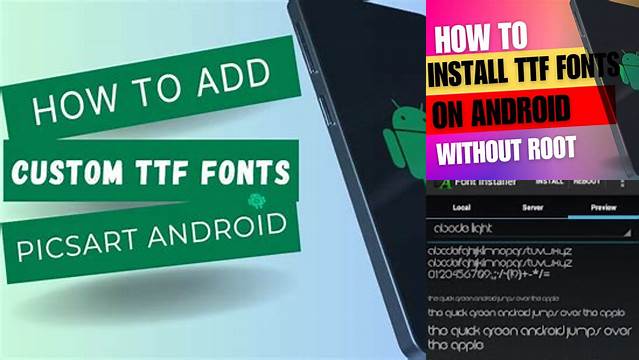
Download TTF Fonts On Android: A Simple Guide
Hey guys! Ever felt like your Android phone's fonts are just a bitβ¦blah? Want to spice things up and make your device truly you? Well, you're in luck! Learning how to download TTF fonts for Android is a super easy way to personalize your phone or tablet. TTF (TrueType Font) fonts are a common and versatile type of font that works on pretty much any device, including your Android. They're like the chameleons of the font world, adapting to fit right in and look great. This guide will walk you through everything you need to know, from finding cool fonts to installing them and making your phone look awesome. So, let's get started and make your Android device a reflection of your personality!
1. Understanding TTF Fonts
Before we dive into the how-to, let's talk a bit about what TTF fonts actually are. TTF stands for TrueType Font, and it's a standard in the digital font world. Think of them as the OG of fonts, having been around since the late 1980s. Their widespread use and compatibility make them perfect for Android devices. They're scalable, meaning they look crisp and clear at any size, whether you're reading a tiny notification or a large text message. This scalability is a huge advantage, ensuring your chosen font looks fantastic across all your apps and screens. Understanding the basics of TTF fonts helps you appreciate their versatility and why they're such a popular choice for customizing your Android device. TTF fonts are like the building blocks of your phone's visual personality, so choosing the right ones is key to making your device stand out.
3. Choosing the Right Font Style
Now comes the fun part: picking out the fonts that speak to you! With so many options available, choosing the right font style can feel like picking a favorite flavor of ice cream β there are just so many good ones! Think about the vibe you want your phone to have. Do you want it to look sleek and professional? Go for a sans-serif font like Roboto or Open Sans. Feeling more playful and creative? A script font or a decorative font might be more your style. Consider the readability of the font, too. A super fancy font might look cool, but if it's hard to read your messages and notifications, it's not very practical. Balance aesthetics with functionality. Also, think about how the font will look across different apps and screen sizes. A font that looks great in one app might not look so great in another. So, experiment, try out different fonts, and see what feels right. Choosing the right font style is a key part of personalizing your Android experience, so have fun with it!
4. Checking Font Compatibility
Before you get too attached to a font, it's super important to make sure it's actually compatible with your Android device. Most TTF fonts will work just fine, but sometimes there can be issues, especially with older fonts or fonts that haven't been updated in a while. One way to check compatibility is to read the font's description on the website where you found it. Often, the creator will mention any known compatibility issues. Another thing to consider is whether the font supports the languages you need. Some fonts only include characters for certain languages, so if you need to type in a language with special characters, make sure the font supports it. It's always better to double-check compatibility before you go through the hassle of installing a font that might not work. This little bit of research can save you a lot of frustration later on. Checking font compatibility ensures a smooth and enjoyable font customization experience.
7. Extracting TTF Fonts from ZIP Files
As we mentioned earlier, TTF fonts often come packaged in ZIP files. Think of a ZIP file like a digital suitcase β it contains one or more files, compressed to make them easier to download and share. Before you can use your new font, you need to unpack that suitcase and extract the TTF file. This is usually a pretty simple process. Just navigate to the ZIP file in your file manager and tap on it. Your file manager should give you an option to extract the files. Choose a location to extract them to β the Downloads folder is usually a good choice. Once the files are extracted, you'll see the TTF file, which is the actual font file that you'll install. Extracting fonts from ZIP files is a crucial step in the installation process. It's like preparing the ingredients before you start cooking β you need to get everything ready to go! Learning to extract files ensures you can access and install your downloaded fonts smoothly.
8. Installing TTF Fonts on Android: The Challenges
Okay, here's the thing: installing TTF fonts on Android isn't always as straightforward as it could be. Unlike some other operating systems, Android doesn't have a built-in system-wide font installer. This means you can't just tap on a TTF file and have it automatically change your phone's system font. This can be a bit of a bummer, but don't worry, there are still ways to use custom fonts on your Android device! The main challenge is that you'll need to use a third-party app or a custom launcher to change your system font. Some apps and launchers offer built-in font customization options, making the process much easier. We'll talk more about those in the next sections. Understanding these challenges is key to finding the best method for installing fonts on your specific device.
9. Using Font Installer Apps
One of the easiest ways to install TTF fonts on Android is by using a font installer app. These apps act like font fairies, making the process much simpler and more user-friendly. There are several font installer apps available on the Google Play Store, such as iFont, HiFont, and FontFix. These apps usually come with a library of fonts you can choose from, but they also allow you to install your own downloaded TTF fonts. The process usually involves selecting the font file and then following the app's instructions, which might involve granting the app certain permissions. Font installer apps can be a lifesaver if you're not comfortable with more technical methods. They provide a convenient and often visual way to browse, preview, and install fonts. Using font installer apps is a great way to simplify the font installation process on Android.
10. Exploring Font Customization Options in Launchers
Another cool way to change fonts on Android is by using custom launchers. Think of a launcher as the director of your Android home screen, controlling how everything looks and feels. Some launchers, like Nova Launcher, Apex Launcher, and GO Launcher, offer built-in font customization options. This means you can change the system font directly from the launcher's settings, without needing a separate font installer app. This can be a super convenient option, especially if you already use a custom launcher. To change the font, you'll usually need to go into the launcher's settings, look for the "Appearance" or "Font" section, and then select your desired font. Some launchers even let you preview the font before you apply it, which is a huge plus. Exploring font customization options in launchers is a great way to personalize your Android experience from the ground up.
11. Rooting Your Android Device for Full Font Control
Okay, this is where things get a bit more advanced. Rooting your Android device is like unlocking its full potential, giving you access to system-level settings and customizations that you wouldn't normally have. One of the benefits of rooting is that it gives you much more control over your device's fonts. With root access, you can use apps like FontFix or iFont to change the system font directly, without any limitations. However, it's really important to understand that rooting can be risky. It can void your warranty and, if done incorrectly, can even brick your device. So, if you're considering rooting, do your research and make sure you know what you're doing. Rooting your Android device is a powerful option for full font customization, but it's not for the faint of heart.
12. Backing Up Your Current Fonts
Before you go ahead and change your fonts, it's always a smart idea to back up your current fonts. Think of it as creating a safety net β if you don't like the new font or something goes wrong, you can easily revert back to the original. Some font installer apps offer a built-in backup feature, which makes the process super easy. If your app doesn't have this feature, you can manually back up your fonts by copying them from the system fonts folder (which usually requires root access). Backing up your current fonts is like having an undo button for your font changes. It gives you peace of mind and allows you to experiment with new fonts without fear of messing things up. Always back up your fonts before making changes to ensure a smooth and reversible font customization process.
13. Previewing Fonts Before Applying
Imagine buying a new outfit without trying it on first β you might end up with something that doesn't quite fit or look the way you expected. The same goes for fonts! That's why previewing fonts before you apply them is so important. Most font installer apps and launchers with font customization options offer a preview feature. This lets you see how the font will look on your device before you commit to changing it. You can usually preview the font in different sizes and styles, and even see how it looks in different apps. Previewing fonts is like a test drive for your phone's style. It helps you avoid font fails and ensures you choose a font that you'll actually love. Always preview your font before applying to make an informed decision and avoid potential font regrets.
14. Troubleshooting Common Font Installation Issues
Sometimes, even with the best-laid plans, things can go wrong. Font installation isn't always a walk in the park, and you might run into some issues along the way. One common problem is that the font doesn't appear to be changing, even after you've installed it. This could be due to a caching issue, which can usually be resolved by restarting your device. Another issue is that the font looks weird or distorted. This could be a sign that the font isn't fully compatible with your device, or that there's a problem with the font file itself. Don't panic if you encounter a font installation hiccup! Most problems are easily fixable. Troubleshooting common font installation issues ensures you can overcome any obstacles and achieve your desired font customization.
15. Restarting Your Device After Font Installation
Okay, you've installed your new font β congrats! But don't be surprised if you don't see the changes right away. Often, your Android device needs a little nudge to fully recognize the new font. That's where restarting your device comes in. Restarting your phone is like giving it a mini-reboot, clearing out the cache and refreshing the system. This allows the new font to load properly and be displayed across your device. Restarting your device is a simple but crucial step in the font installation process. It's like adding the finishing touch to your masterpiece, ensuring everything looks just right. Make it a habit to restart your device after installing a new font to ensure the changes take effect smoothly and completely.
16. Finding Fonts That Support Multiple Languages
If you're multilingual or often communicate in different languages, finding fonts that support multiple languages is super important. Not all fonts include characters for every language, and if you try to type a character that's not supported, it might show up as a blank box or a weird symbol. That's not a good look! When you're searching for fonts, pay attention to the language support information. Many font websites will list the languages that a font supports. You can also look for fonts that are specifically designed for multilingual use, such as those that include a wide range of Unicode characters. Finding fonts that support multiple languages ensures you can communicate effectively and stylishly in any language you choose.
17. Understanding Font Licenses and Usage Rights
Just like software and music, fonts are intellectual property, and they come with licenses that dictate how you can use them. It's crucial to understand font licenses to avoid any legal trouble. Some fonts are completely free for both personal and commercial use, while others have restrictions. For example, a font might be free for personal use but require a license for commercial projects, like using it in a logo or on a website. When you download a font, always check the license agreement that comes with it. This will usually be a text file or a link to a website with the license information. Understanding font licenses and usage rights ensures you use fonts legally and ethically, respecting the creators' work.
18. Using Custom Fonts in Android Apps
Want to take your font customization game to the next level? You can actually use custom fonts within specific Android apps! This is a fantastic way to personalize the look and feel of your favorite apps. However, the process varies depending on the app. Some apps have built-in font customization options that allow you to select from a list of installed fonts. Others might require you to use a special code or plugin to add custom fonts. It's worth exploring the settings of your favorite apps to see if they offer font customization features. Using custom fonts in Android apps allows you to create a truly unique and personalized mobile experience, tailoring the look of each app to your specific taste.
19. Combining Different Fonts for a Unique Look
Okay, let's get creative! Once you've got a collection of fonts, you can start experimenting with combining them to create a truly unique look for your Android device. Think of it like mixing and matching different outfits to create a stylish ensemble. You might use one font for your headings, another for your body text, and a third for your notifications. The key is to find fonts that complement each other and create a cohesive visual style. Avoid using too many different fonts, as this can make your device look cluttered and overwhelming. Combining different fonts for a unique look is like creating a signature style for your phone. It's a fun and expressive way to showcase your personality and creativity.
20. The Impact of Fonts on Readability
Fonts aren't just about aesthetics; they also play a huge role in readability. A font that looks beautiful but is hard to read is ultimately not very useful. Readability is key, especially when it comes to reading long emails, articles, or books on your Android device. When choosing a font, consider factors like the font's weight, spacing, and character shape. Sans-serif fonts are generally considered more readable on screens than serif fonts, but there are exceptions. Experiment with different fonts and sizes to find what works best for your eyes. The impact of fonts on readability cannot be overstated. Choosing a readable font ensures you can enjoy a comfortable and strain-free reading experience on your Android device.
21. Exploring Monospace Fonts for Coding and Technical Tasks
If you're a coder, writer, or anyone who works with a lot of text, you might want to explore monospace fonts. Monospace fonts are fonts where every character takes up the same amount of horizontal space. This makes them ideal for coding, as it helps to align code blocks and make them easier to read. They're also great for writing in plain text formats, like Markdown or text files. There are tons of cool monospace fonts available, ranging from classic styles like Courier New to more modern options like Fira Code. Exploring monospace fonts for coding and technical tasks can significantly improve your productivity and readability, especially when working with large amounts of text or code.
22. Finding Retro and Vintage Fonts for a Nostalgic Feel
Feeling nostalgic? Want to give your Android device a touch of old-school charm? Then you should definitely check out retro and vintage fonts! These fonts evoke a sense of classic style and nostalgia, bringing back memories of typewriters, old posters, and vintage signs. There are tons of retro and vintage fonts available online, from fonts that mimic the look of old computer terminals to fonts that resemble hand-lettered signs. Using a retro or vintage font is a fun way to add personality and character to your Android device, giving it a unique and timeless feel. Finding retro and vintage fonts for a nostalgic feel allows you to express your appreciation for classic design and create a unique visual experience.
23. The Psychology of Fonts: How Fonts Evoke Emotions
Did you know that fonts can actually evoke emotions? It's true! Different fonts have different personalities, and they can influence how people perceive your message. For example, a bold, sans-serif font might convey a sense of strength and confidence, while a delicate script font might evoke feelings of elegance and romance. Think about the fonts that are used in branding and advertising β they're carefully chosen to create a specific emotional connection with the audience. When choosing a font for your Android device, consider the message you want to convey and the emotions you want to evoke. The psychology of fonts is a fascinating field that highlights the power of typography in communication and expression.
24. Using Handwritten Fonts for a Personal Touch
Want to add a personal touch to your Android device? Consider using a handwritten font! These fonts mimic the look of actual handwriting, giving your device a warm and intimate feel. Handwritten fonts are great for creating a friendly and approachable vibe, and they can be especially effective for personal messages and notes. There are tons of different styles of handwritten fonts available, from casual and playful to elegant and formal. Choose a handwritten font that reflects your personality and style. Using handwritten fonts for a personal touch allows you to inject your unique character into your Android device's visual identity.
25. Exploring Decorative and Display Fonts for Special Occasions
Sometimes, you need a font that's a little more special β a font that makes a statement and grabs attention. That's where decorative and display fonts come in! These fonts are designed for special occasions and eye-catching designs. They're often used for headings, posters, and other visual elements where you want to make a big impact. Decorative and display fonts come in a huge variety of styles, from bold and geometric to whimsical and ornate. However, they're not always the best choice for body text, as they can be harder to read. Exploring decorative and display fonts for special occasions allows you to add a touch of flair and personality to your Android device, making it stand out from the crowd.
26. Creating Your Own Custom Fonts (Advanced)
Okay, this is for the true font aficionados out there! If you're feeling really creative and adventurous, you can actually create your own custom fonts. This is a more advanced process, but it's incredibly rewarding if you want a font that's completely unique and tailored to your needs. There are several font creation software programs available, such as FontForge, Glyphs, and BirdFont. These programs allow you to design each character individually, giving you complete control over the font's appearance. Creating your own custom fonts is a challenging but incredibly fulfilling creative endeavor, allowing you to express your artistic vision in the world of typography.
27. Sharing Your Favorite Fonts with Friends
Found some awesome fonts that you just can't keep to yourself? Sharing is caring! You can easily share your favorite fonts with your friends so they can spice up their Android devices too. The easiest way to share a font is to send the TTF file directly. You can attach it to an email, send it via messaging app, or upload it to a cloud storage service like Google Drive or Dropbox. Just make sure your friends know how to install the font on their devices. Sharing your favorite fonts with friends is a great way to spread the font love and help others personalize their mobile experience.
28. Staying Updated on New Font Releases and Trends
The world of typography is constantly evolving, with new fonts being released all the time. If you're a font fanatic, you'll want to stay updated on the latest trends and releases. There are several websites and blogs that focus on typography, such as Fonts in Use, Typewolf, and I Love Typography. You can also follow font foundries and designers on social media to see their latest work. Staying updated on new font releases and trends ensures you can discover fresh and exciting fonts and keep your Android device looking stylish and contemporary.
29. Using Fonts to Improve Accessibility on Android
Fonts can also play a crucial role in accessibility. Choosing the right font can make your Android device much easier to use for people with visual impairments or other accessibility needs. For example, larger font sizes and fonts with clear, distinct characters can improve readability. Some fonts are also specifically designed for people with dyslexia. Accessibility is paramount, and using fonts thoughtfully can make a big difference in the user experience for everyone. Using fonts to improve accessibility on Android demonstrates a commitment to inclusivity and user-centered design.
30. The Future of Font Customization on Android
What does the future hold for font customization on Android? It's hard to say for sure, but there are some exciting possibilities on the horizon. As Android continues to evolve, we might see more built-in font customization options, making it easier for users to change their system fonts without relying on third-party apps or launchers. We might also see more AI-powered font recommendations, helping users discover fonts that match their personality and style. The future of font customization on Android is bright, with the potential for even more personalized and accessible mobile experiences. The ongoing development in font customization promises to enhance the user experience and empower individuals to express themselves through typography.